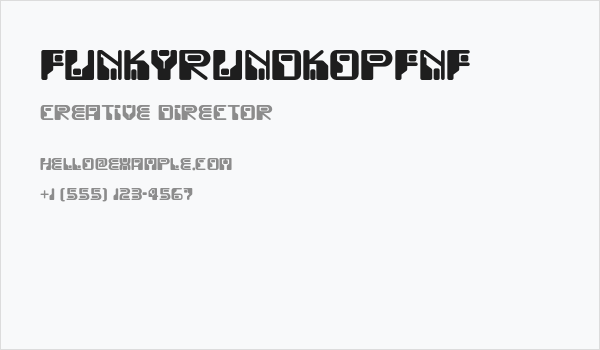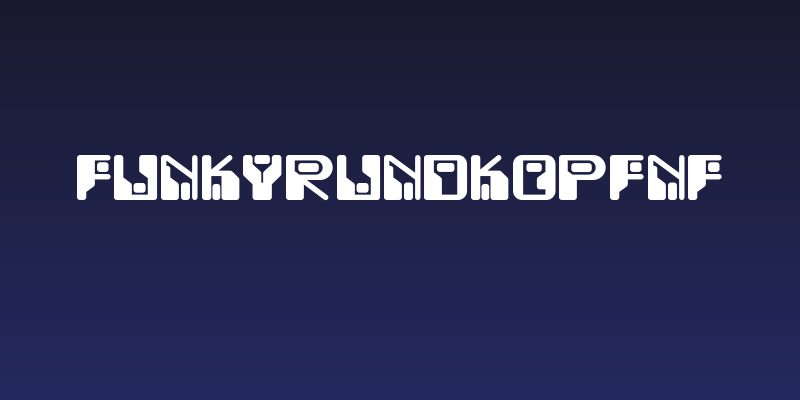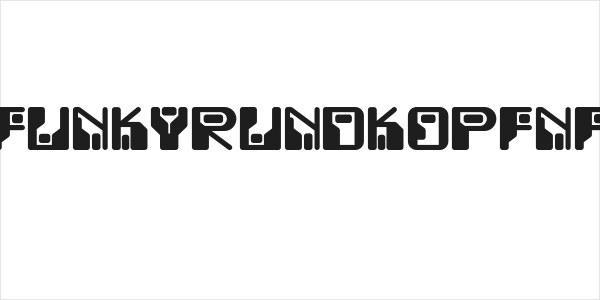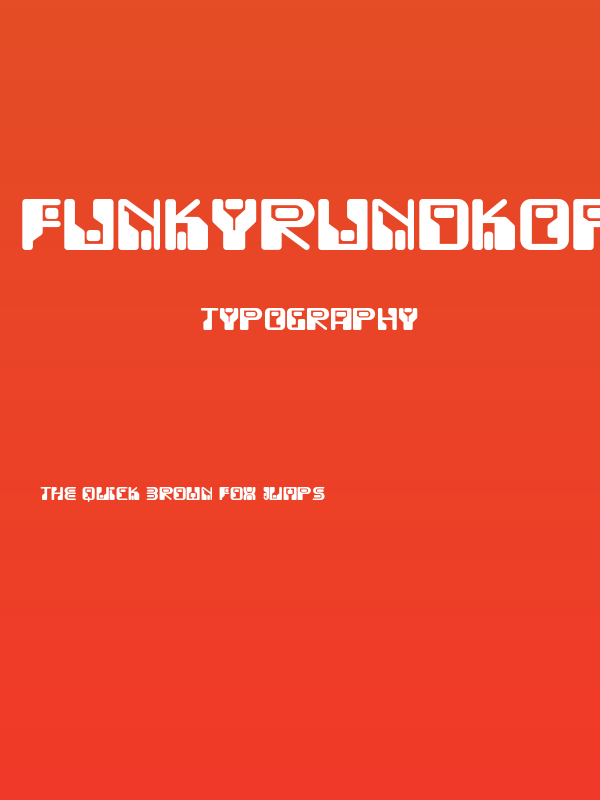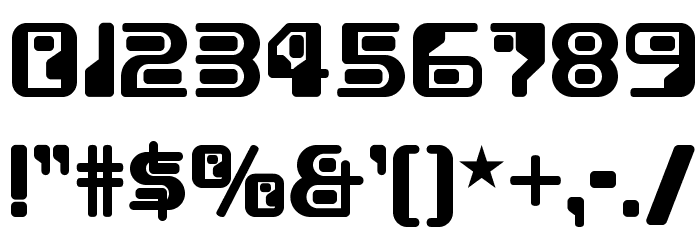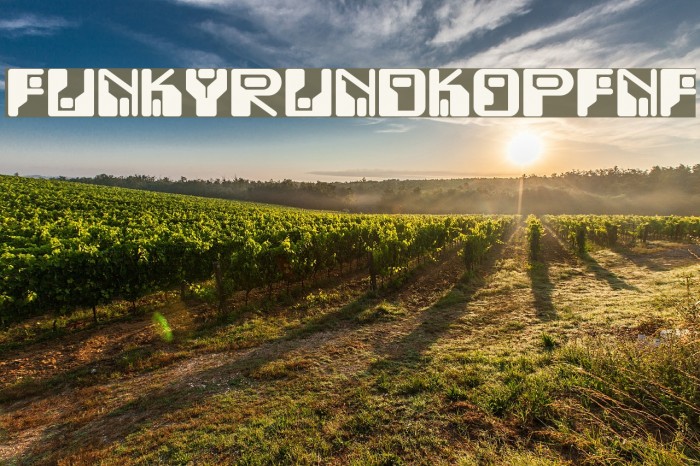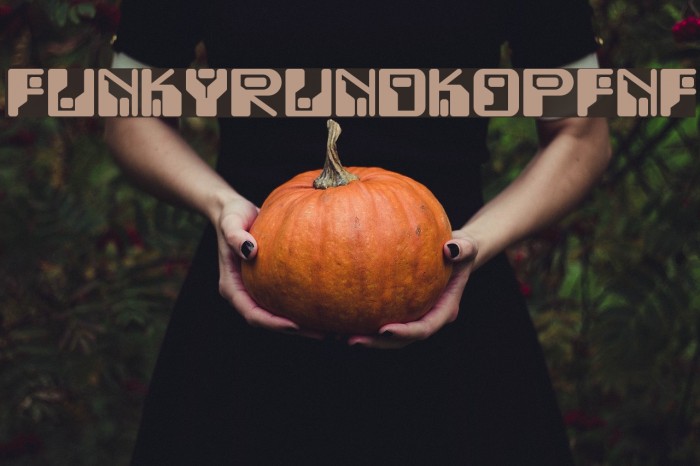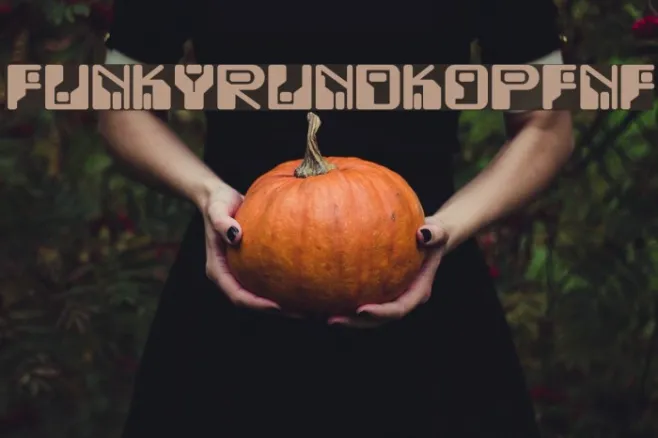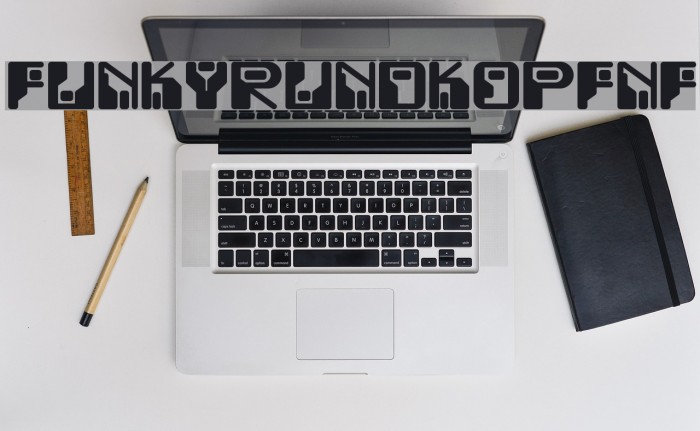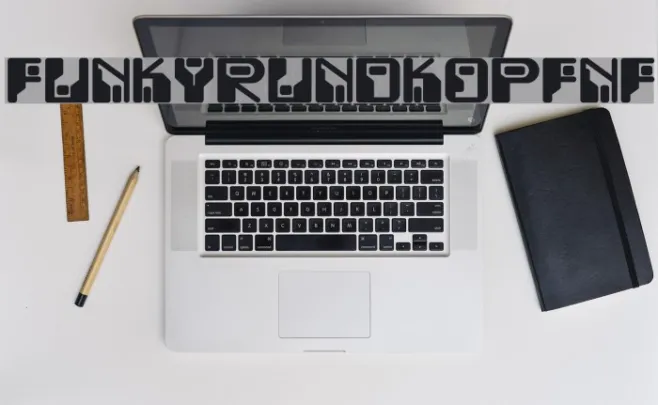
FunkyRundkopfNF Font
FunkyRundkopfNF Description
This font features a bold, geometric design with a futuristic flair. Each character is constructed with thick, rounded strokes and unique cut-out shapes that create a sense of movement and energy. The uppercase and lowercase letters maintain a consistent style, with the lowercase mirroring the uppercase in form and structure. Numbers and special characters follow the same design principles, ensuring a cohesive look across all glyphs. The font's boldness and distinctive style make it stand out, ideal for attention-grabbing headlines or creative projects.
| Overall Style | Futuristic, Modern |
| Proposed Projects | Ideal for sci-fi themed designs, modern posters, video game titles, and branding that requires a bold statement. |